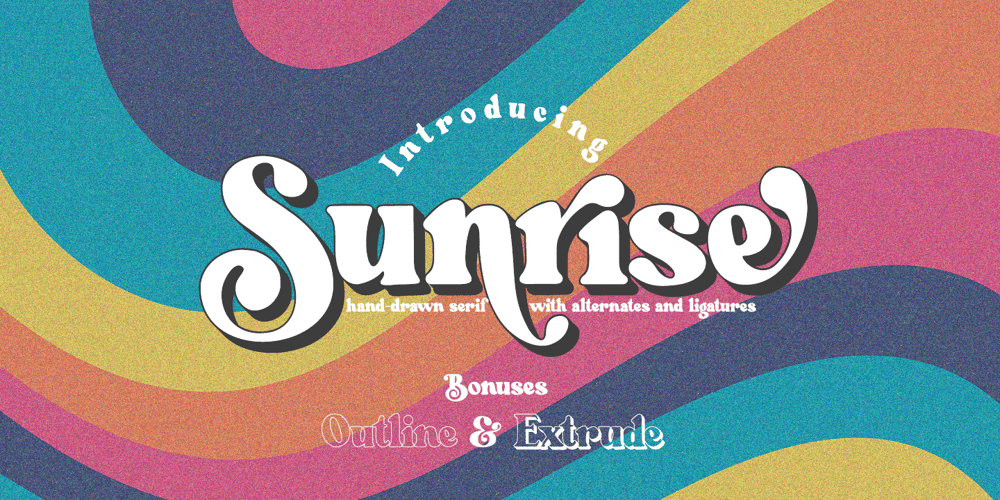
Sunrise
Sunrise font
Sunrise Font Family was designed by Sarwo Edhi Prayitno and published by Haksen. Sunrise contains 3 styles and family package options. Sunrise a serif hand-drawn font with a retro look!There are three fonts included : Sunrise Regular Sunrise Outline Sunrise Extrude You can use these three fonts to create your own retro quotes and words!Font Features : Regular version Character set A-Z in uppercase and lowercase Alternates Character Ligatures Numerals & Punctuation Accented Characters Multiple Languages Supported Sunrise is perfect for : shirts, retro designs, procreate, stickers, logos, branding, greeting cards, Cricut projects, posters, magazines, social media, prints and more!Have a great day,Haksen